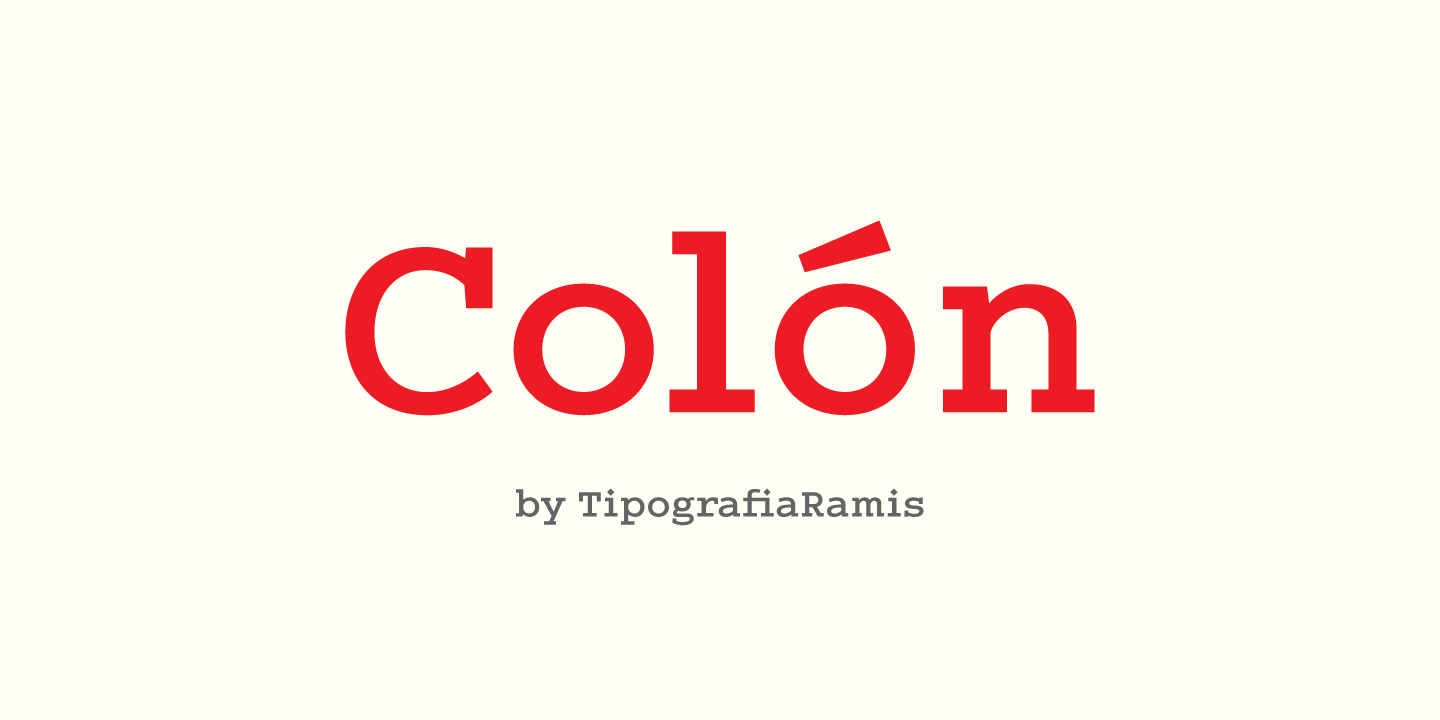
Colon Font is ideal for structured design projects including programming interfaces, coding documentation, technical manuals, data analysis platforms, mathematical publications, scientific reports, systematic presentations, and methodical communication campaigns. This precise typeface works perfectly for software development companies, technical writing services, research institutions, data science organizations, and projects that celebrate logical structure and systematic organization in professional communication.
What makes Colon Font exciting is its systematic organizational character that perfectly captures the essence of structured communication and logical formatting. The font features clean letterforms with punctuation-inspired clarity that reflects the importance of precise syntax and systematic organization in professional documentation. Its methodical design elements embody the spirit of technical precision and logical structure, making it perfect for projects that need to convey organization, clarity, and connection to systematic methodologies. The carefully crafted structured proportions create an atmosphere of technical sophistication and systematic authenticity.
Colon Font comes in multiple family variations including systematic, structured, technical, and organized styles. Each weight maintains the distinctive organizational character while offering different levels of systematic intensity and methodical presence. The font family includes technical alternates, structured ligatures, and systematic variations that provide designers with comprehensive options for creating truly organized and authentically systematic typographic compositions that celebrate logical excellence.
Whether you're designing technical branding, creating systematic marketing materials, or developing organized promotional graphics, Colon Font Free Download provides the perfect typographic foundation for projects that celebrate systematic excellence and structural sophistication. This remarkable typeface transforms ordinary text into compelling expressions of organizational wisdom and systematic clarity. Download this structured font today and organize your design projects with the systematic authenticity and methodical precision that captures the essential spirit of technical communication and logical organization.